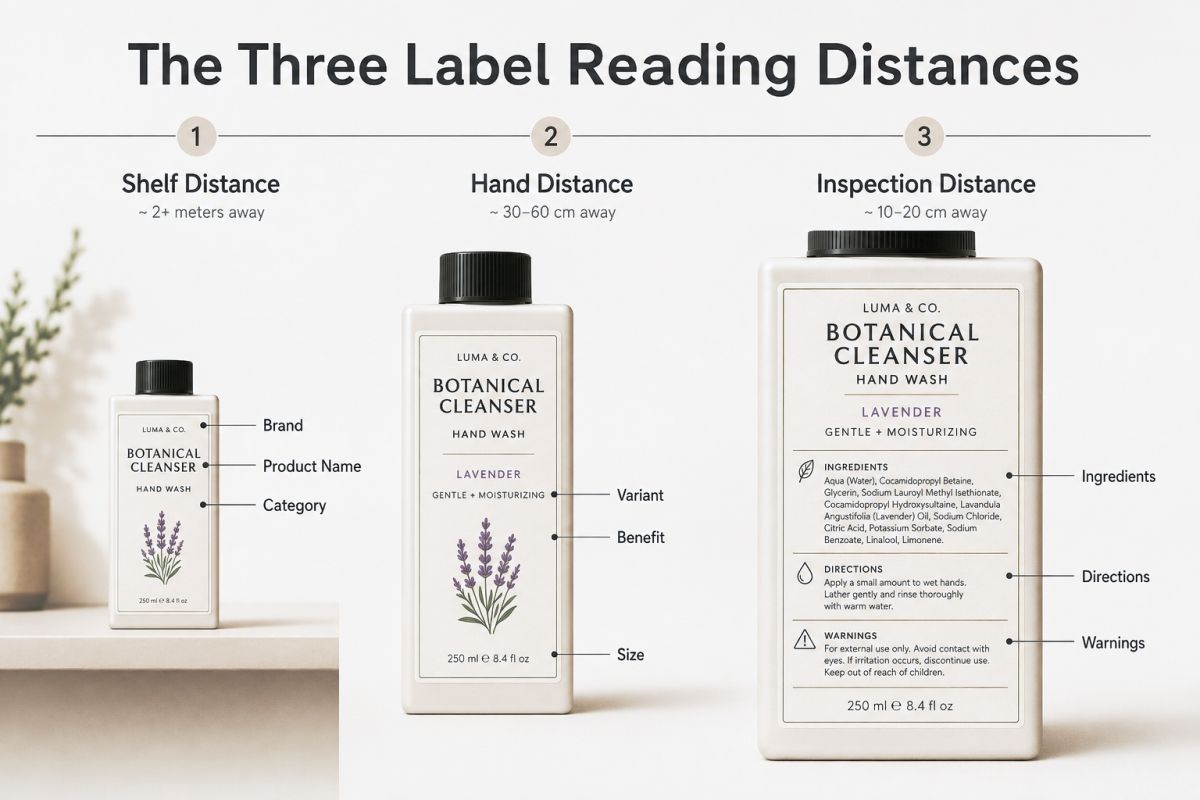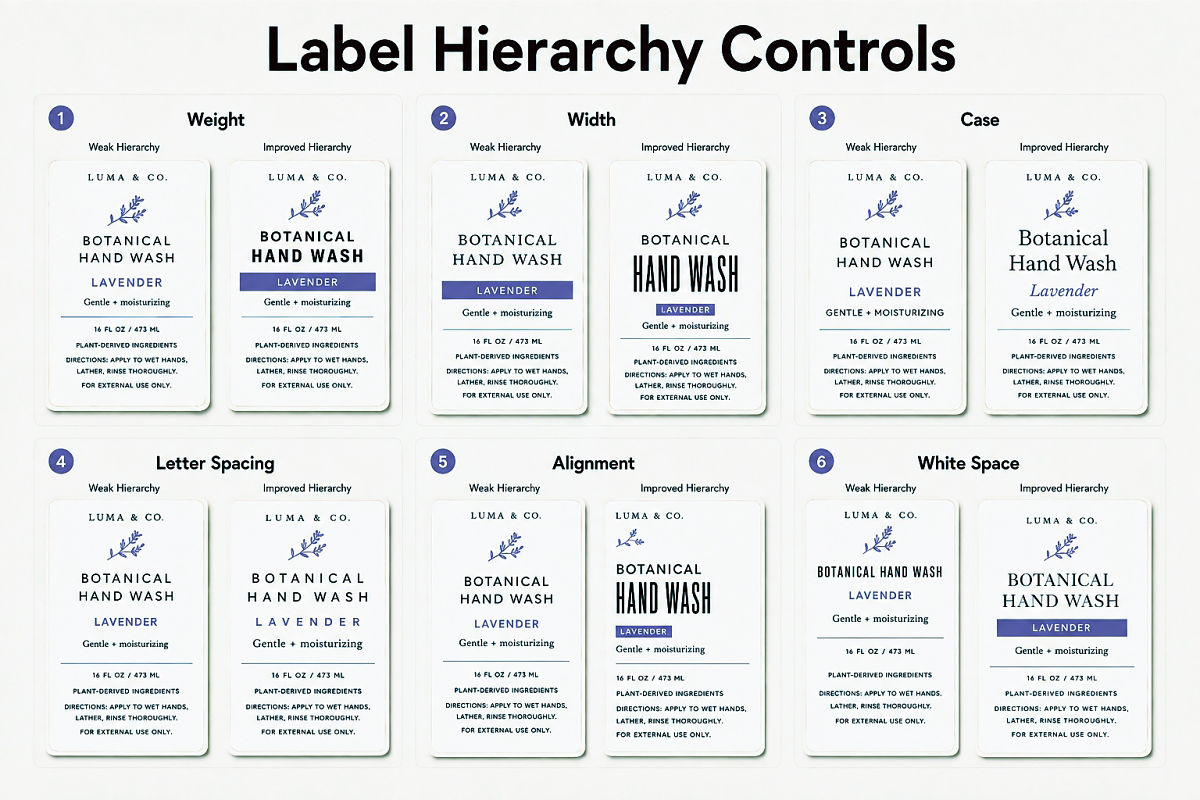
Font Pairing for Product Labels: How to Balance Beauty and Readability
A product label has very little room to make a big impression.
It needs to introduce the brand. Name the product. Explain the variant. Show practical details. Carry legal information. Sometimes it must do all of that on a bottle that fits in your palm.
That is why font pairing for product labels is different from pairing fonts for a poster, website, or social media graphic.
You are not only creating a mood.
You are building a compact reading system.
One font may attract attention from the shelf. Another must remain clear when printed at six or seven points. A third style or weight may need to separate flavors, sizes, warnings, or product benefits.
The best pairings make those roles feel connected without forcing every line to look the same.
In this guide, I will show you how to choose label fonts by function, build hierarchy across limited space, test readability at realistic sizes, and create a typography system that can grow across an entire product range.
Key Takeaways
• Give each font a specific job before comparing styles.
• Use expressive typography for short, high-impact information.
• Choose a reliable workhorse font for descriptions, ingredients, and practical details.
• Test labels at actual print size, not only on enlarged mockups.
• Check numbers, punctuation, uppercase text, and multilingual characters.
• Treat typography as a product system rather than a single attractive composition.
• Review the labeling rules that apply to your product and target market.
Why Product Label Font Pairing Is Different
Most graphic layouts are viewed in reasonably predictable conditions.
A website appears on a screen. A book is held at reading distance. A poster is designed to be viewed from several steps away.
A product label moves through several viewing conditions.
The customer may first see it from across a shelf. Then they pick it up. Finally, they rotate the package to inspect ingredients, directions, or specifications.
The typography must work at every stage.
A label font pairing therefore has three simultaneous jobs:
1. Recognition: Help the product stand out from nearby competitors.
2. Identification: Make the brand, product, and variant easy to understand.
3. Inspection: Keep supporting and mandatory information readable.
A pairing that succeeds at only one of these stages is incomplete.
An expressive display font may create strong shelf impact but fail when used for small product descriptions. A neutral sans serif may make every detail clear but leave the packaging without a recognizable voice.
Good label typography lives between those extremes.
Start With the Three Reading Distances
Before choosing fonts, map the way someone will encounter the label.
I like to divide this into three reading distances.
1. Shelf Distance
At shelf distance, customers do not read every word.
They notice shapes.
They see the silhouette of the product name, the contrast of the main panel, the dominant color, and the general personality of the type.
Your signature font matters most here.
It should create a recognizable word shape without becoming so decorative that the name turns into an illustration.
Useful shelf-distance elements include:
• Brand name
• Product name
• Main category
• One short differentiator
• Strong variant color or word
2. Hand Distance
Once the customer picks up the product, the next level of information becomes visible.
They may read:
• Flavor or scent
• Product type
• Short benefit
• Size
• Key ingredient
• Collection name
• Usage category
This level usually needs a font that complements the signature style but handles more words.
It may be the supporting typeface in your pairing or a calmer weight from the same family.
3. Inspection Distance
Inspection happens when the customer actively searches for information.
This includes:
• Ingredients
• Directions
• Warnings
• Nutrition or technical information
• Manufacturer details
• Contact information
• Batch codes
• Measurements
• Certifications
At this stage, personality should not interfere with clarity.
Your workhorse typeface needs open letterforms, practical spacing, strong punctuation, and reliable performance at small sizes.
This three-distance model is useful because it prevents a common mistake: expecting one expressive font to perform every job.
Define the Label Roles Before Choosing Fonts
Font pairing becomes easier when you stop thinking in terms of “font one” and “font two.”